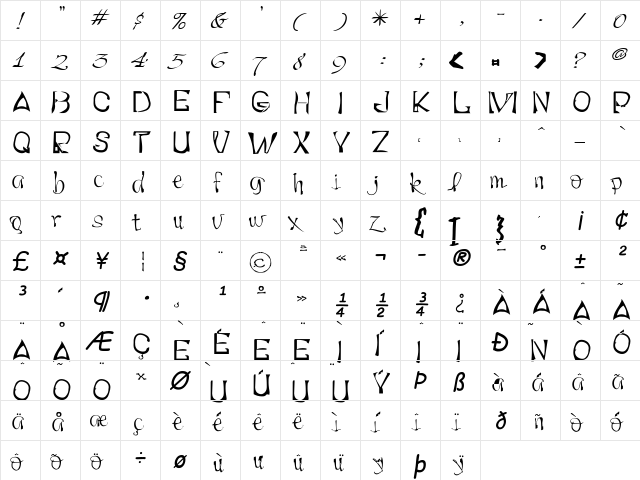
Smartryck Regular
| Designer | Malre |
Design Context for Smartryck Typeface
Smartryck is a composed and adaptable typeface that performs quietly and consistently across a wide range of design contexts.